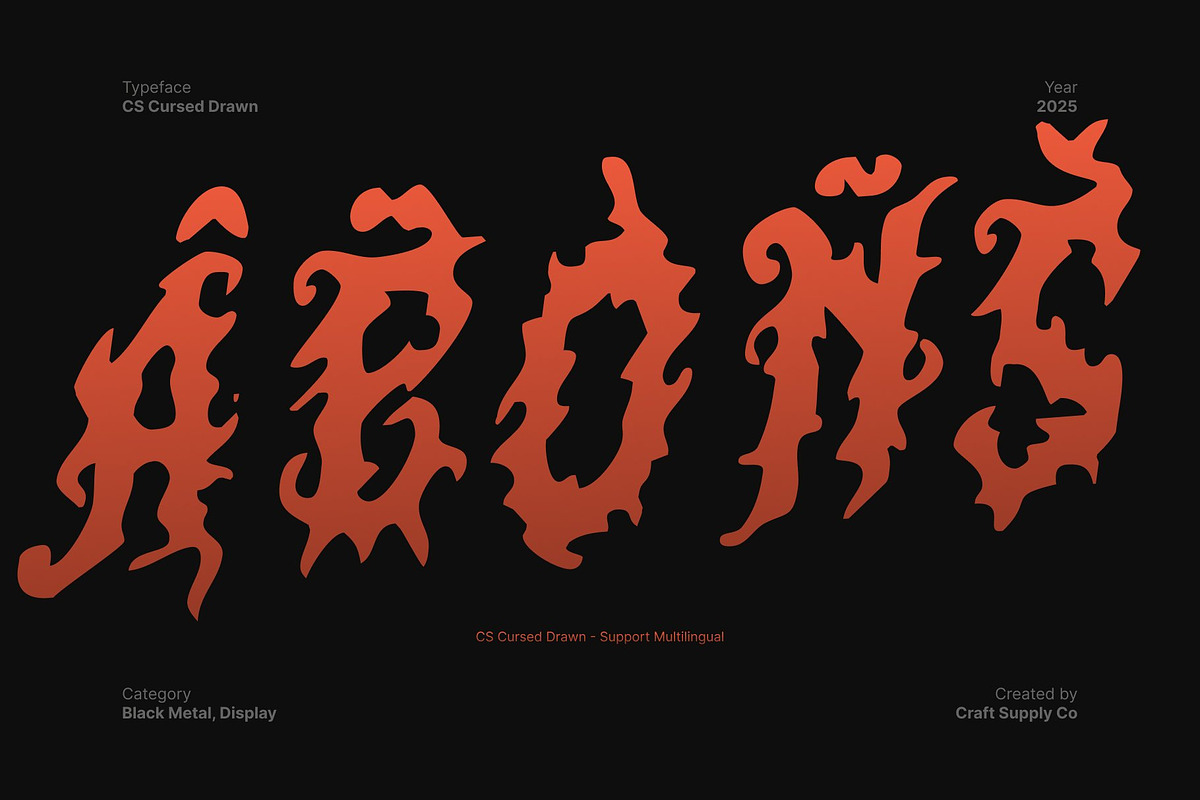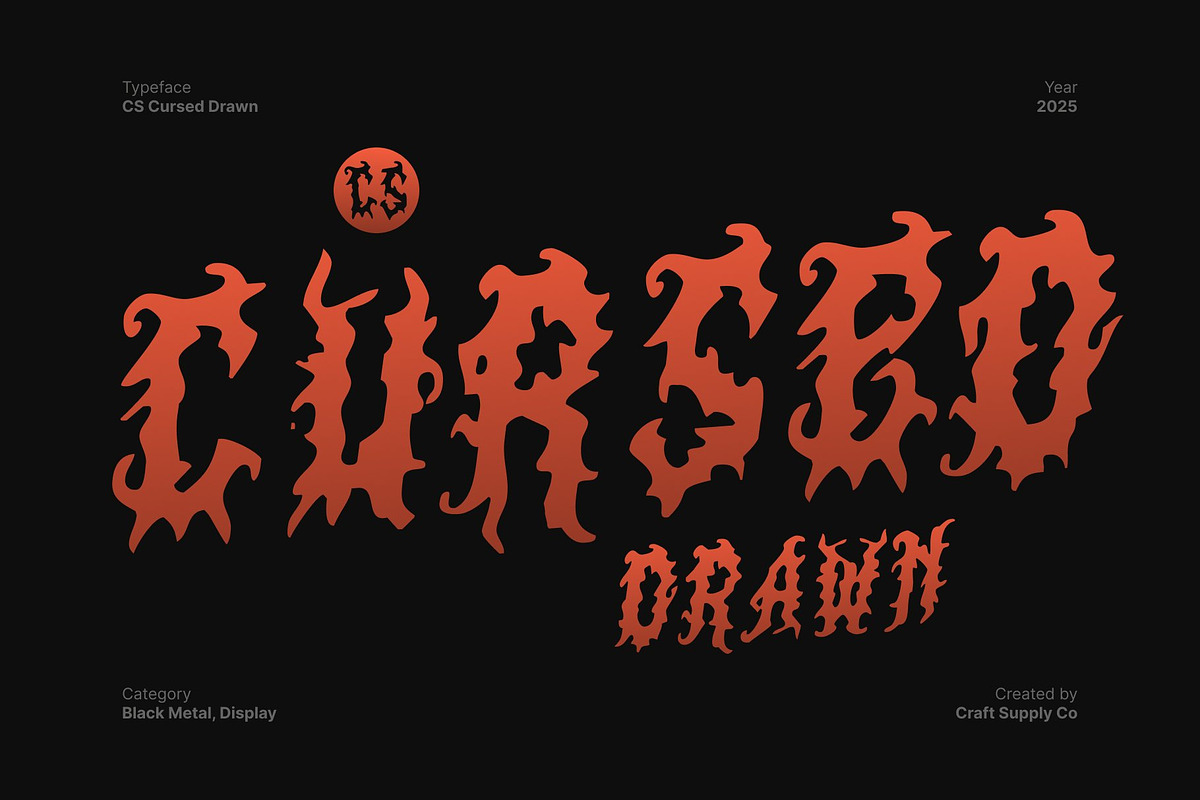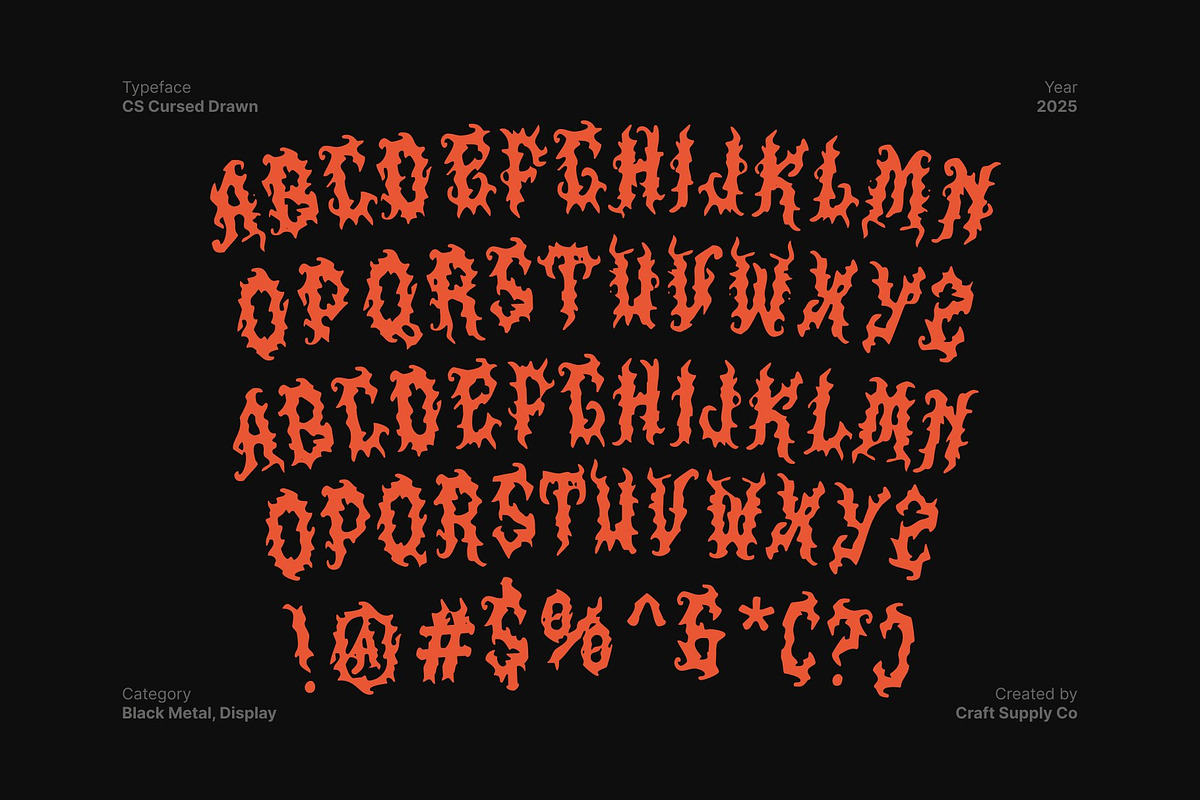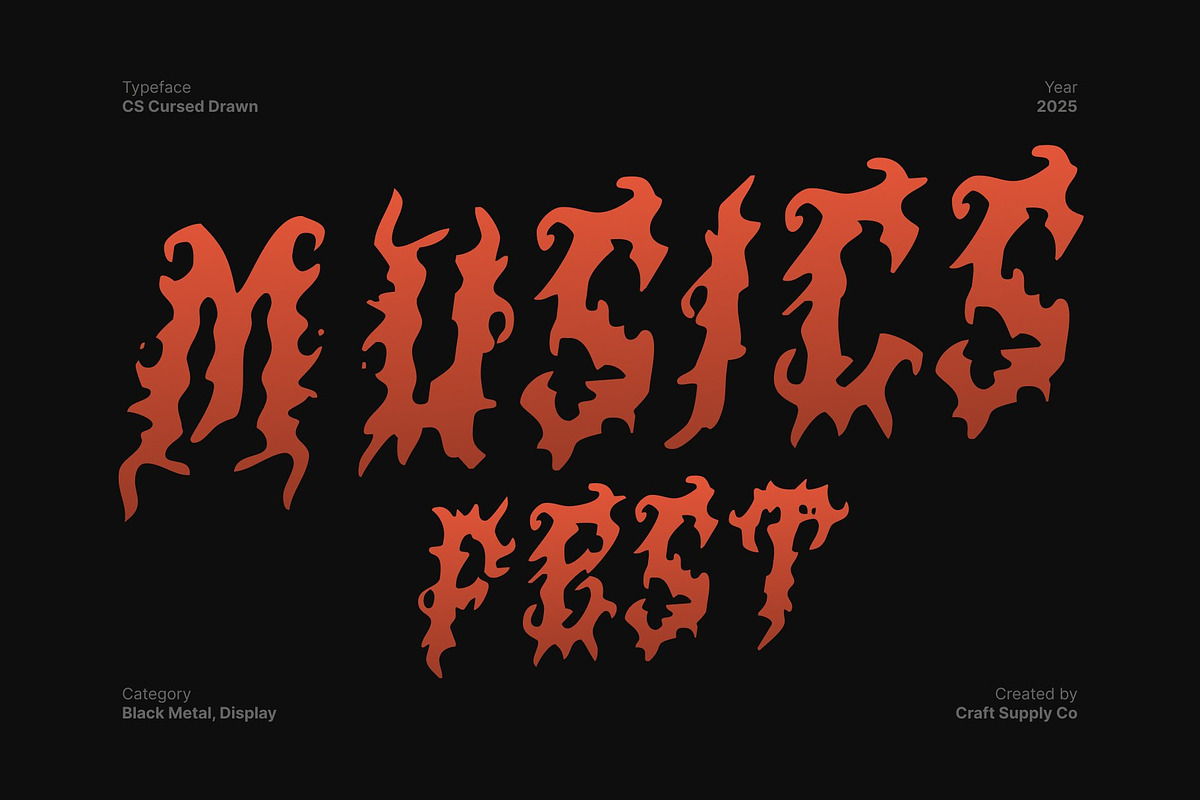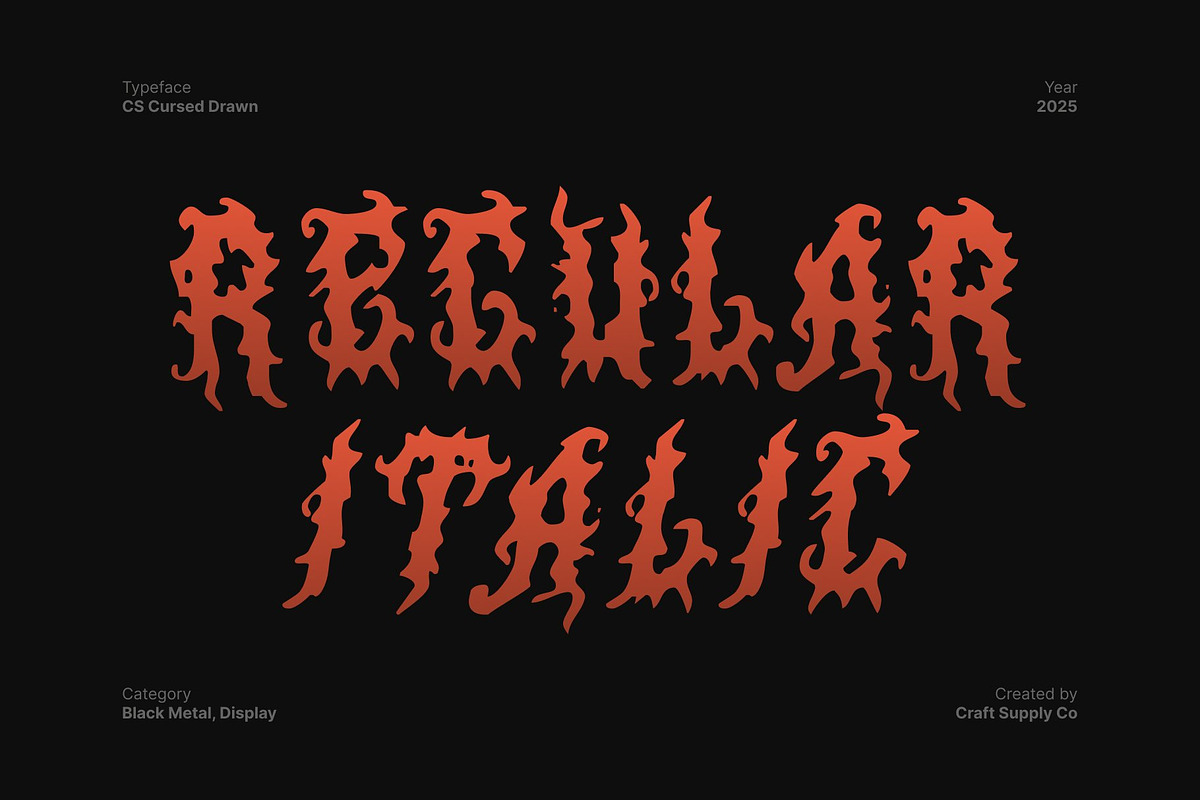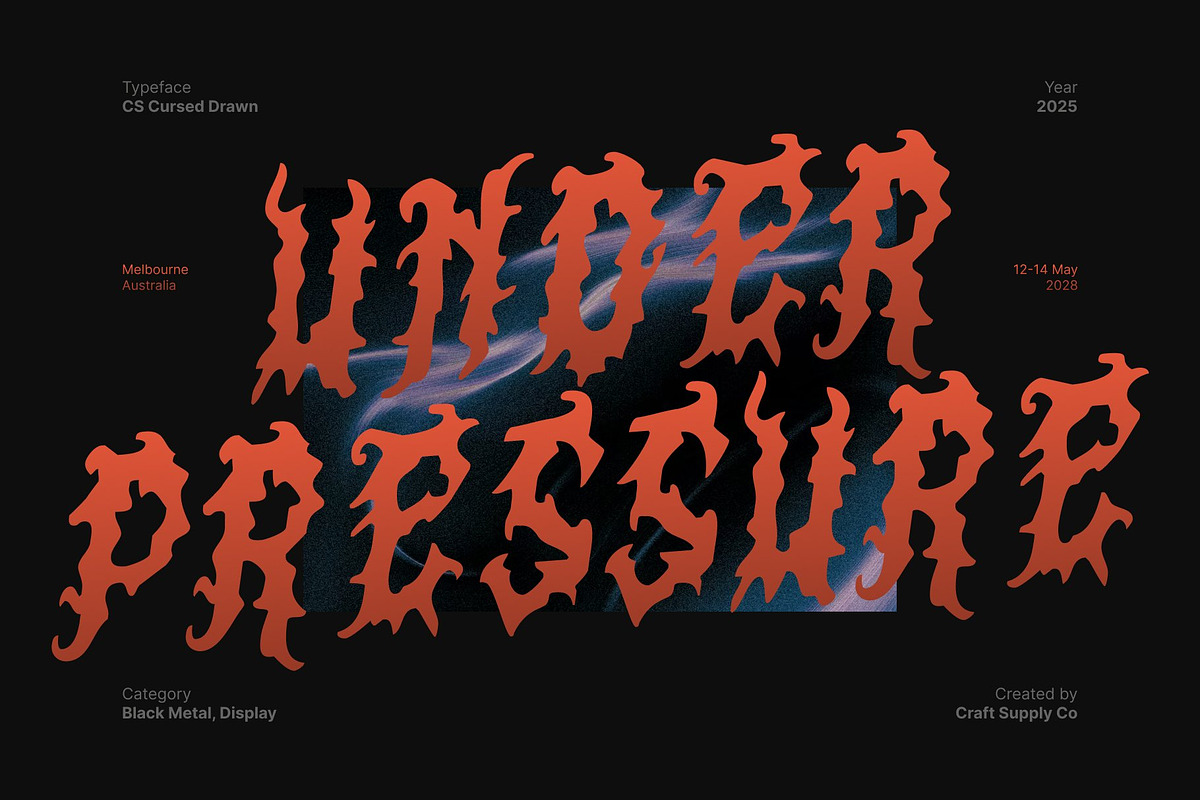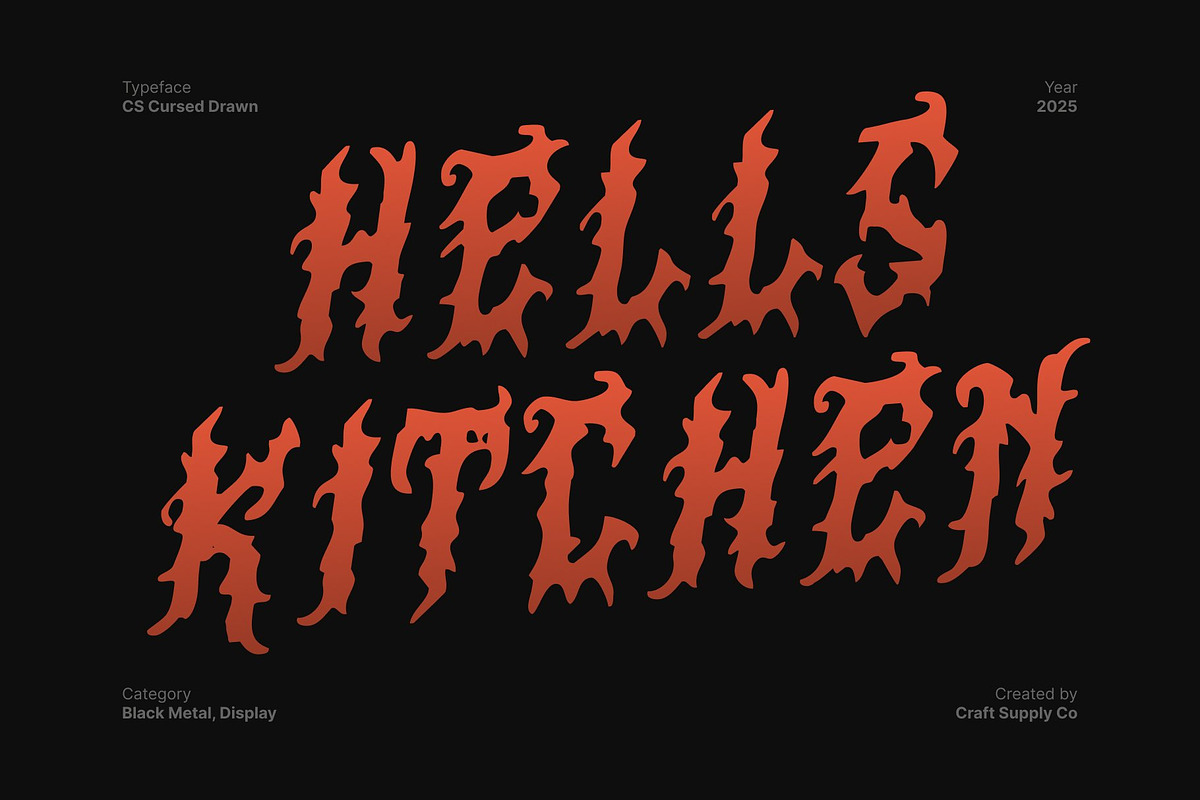
CS Cursed Drawn
CS Cursed Drawn – The Art of Chaos and Darkness: Hand-Drawn Black Metal Font with Raw Energy
Fierce Design with Aggressive Expression This is a black metal display font built to unleash dark intensity and raw aggression. Its jagged spikes, twisted forms, and chaotic rhythm embody the untamed energy of extreme music, making it a perfect match for designs that thrive on rebellion and emotion.
Hand-Drawn Texture for Authentic Grit The drawn texture gives this font a natural, handcrafted appearance, adding authenticity and organic depth to every letterform. Each stroke feels imperfect yet intentional like a hand-sketched sigil of chaos bringing a rough, tactile quality that enhances its brutal aesthetic.
Designed for Bold and Fearless Impact This font commands attention with its sharp, aggressive silhouettes that cut through any background. Ideal for band logos, metal album covers, dark posters, or underground branding, it delivers a design language that is unapologetically loud and visually arresting.
Perfect for Extreme Music and Alternative Art More than just a font, this font is an artistic statement a visual embodiment of power, rebellion, and raw emotion. Whether used in print or digital compositions, it transforms ordinary text into a symbol of darkness and defiance, capturing the spirit of true black metal art.